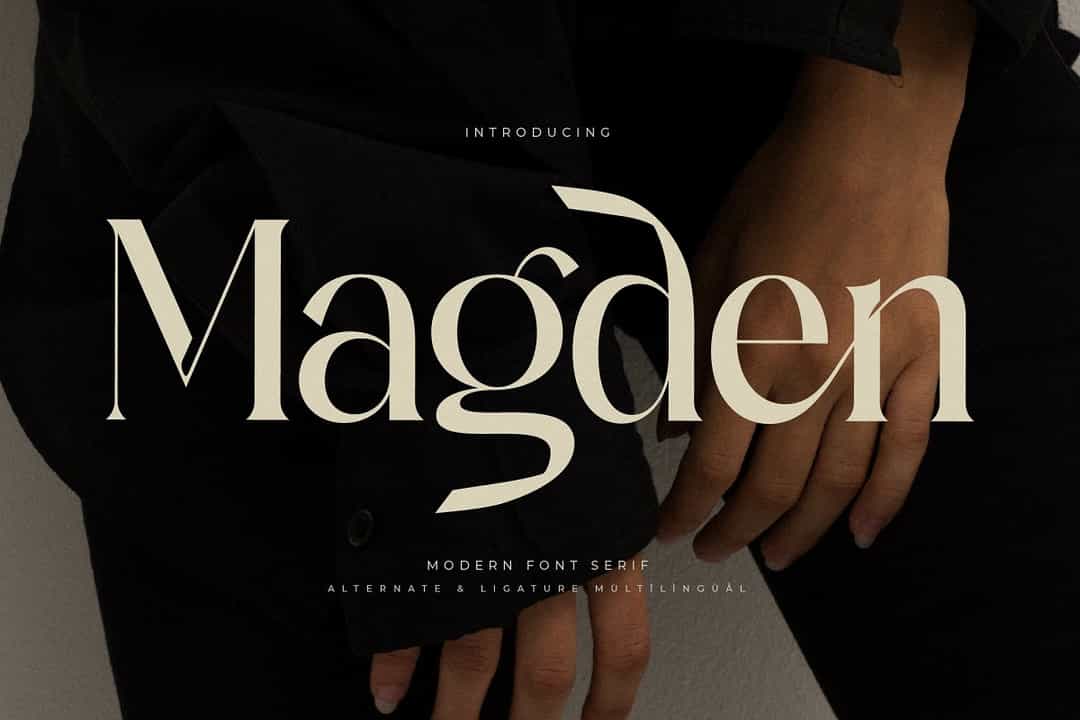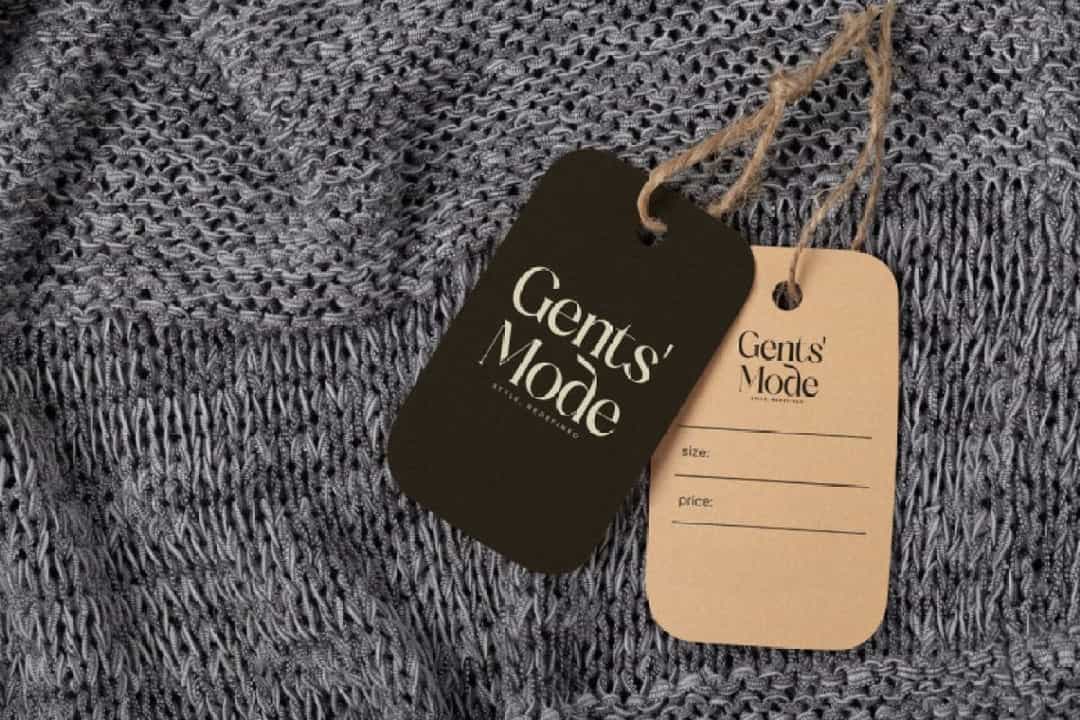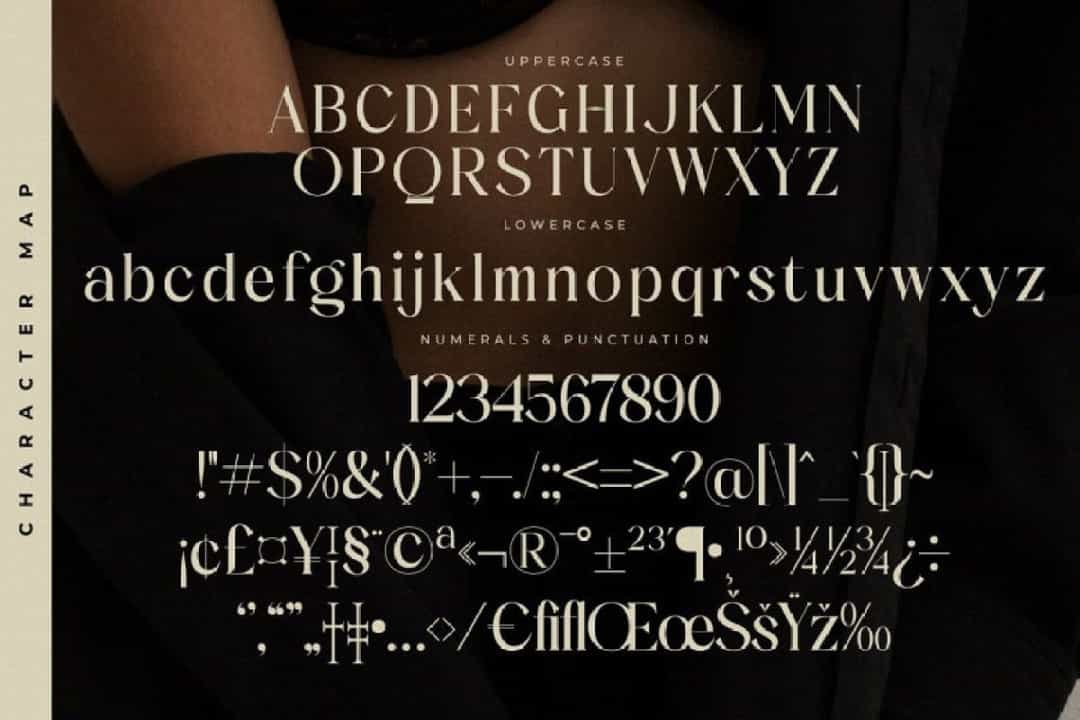
Magden Font, created by Storytype, is an elegant serif typeface featuring modern styling. Ideal for creating classy logos, movie and book name designs, fashion brand magazines, clothing label lettering as well as quotes this font will create timeless impressions with any of your project needs.